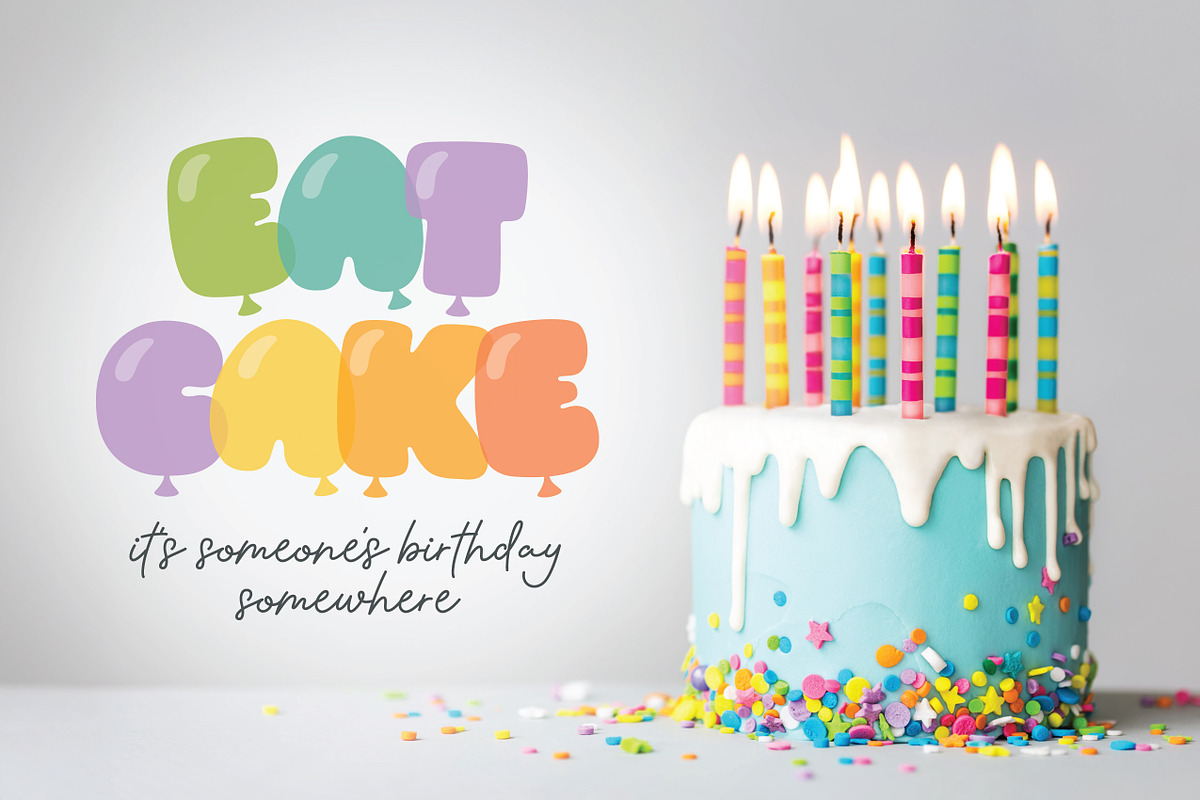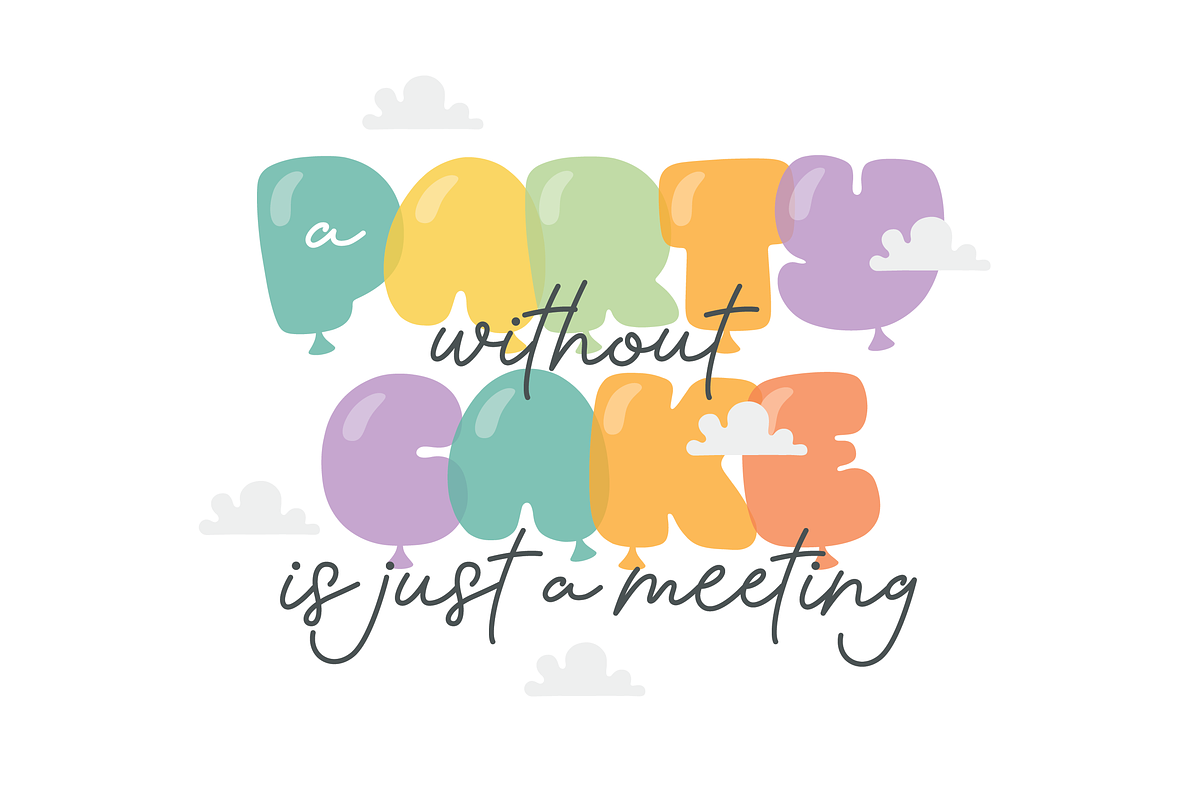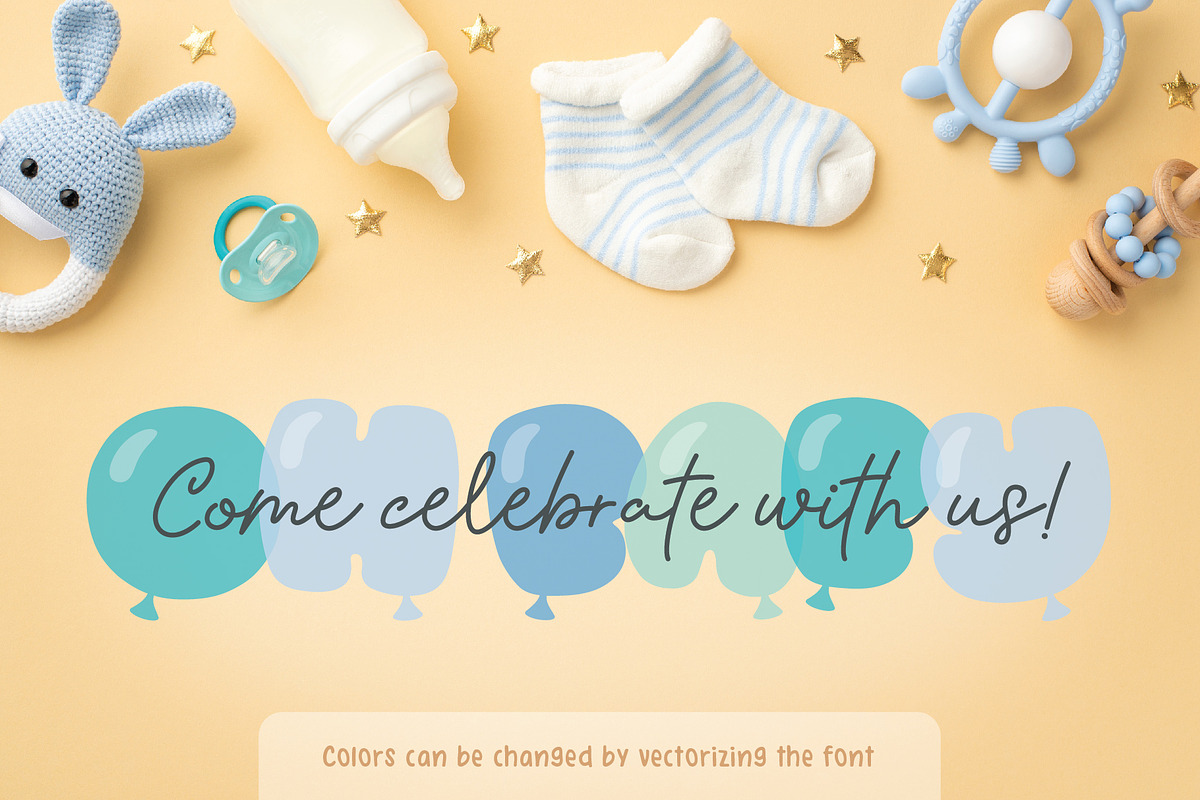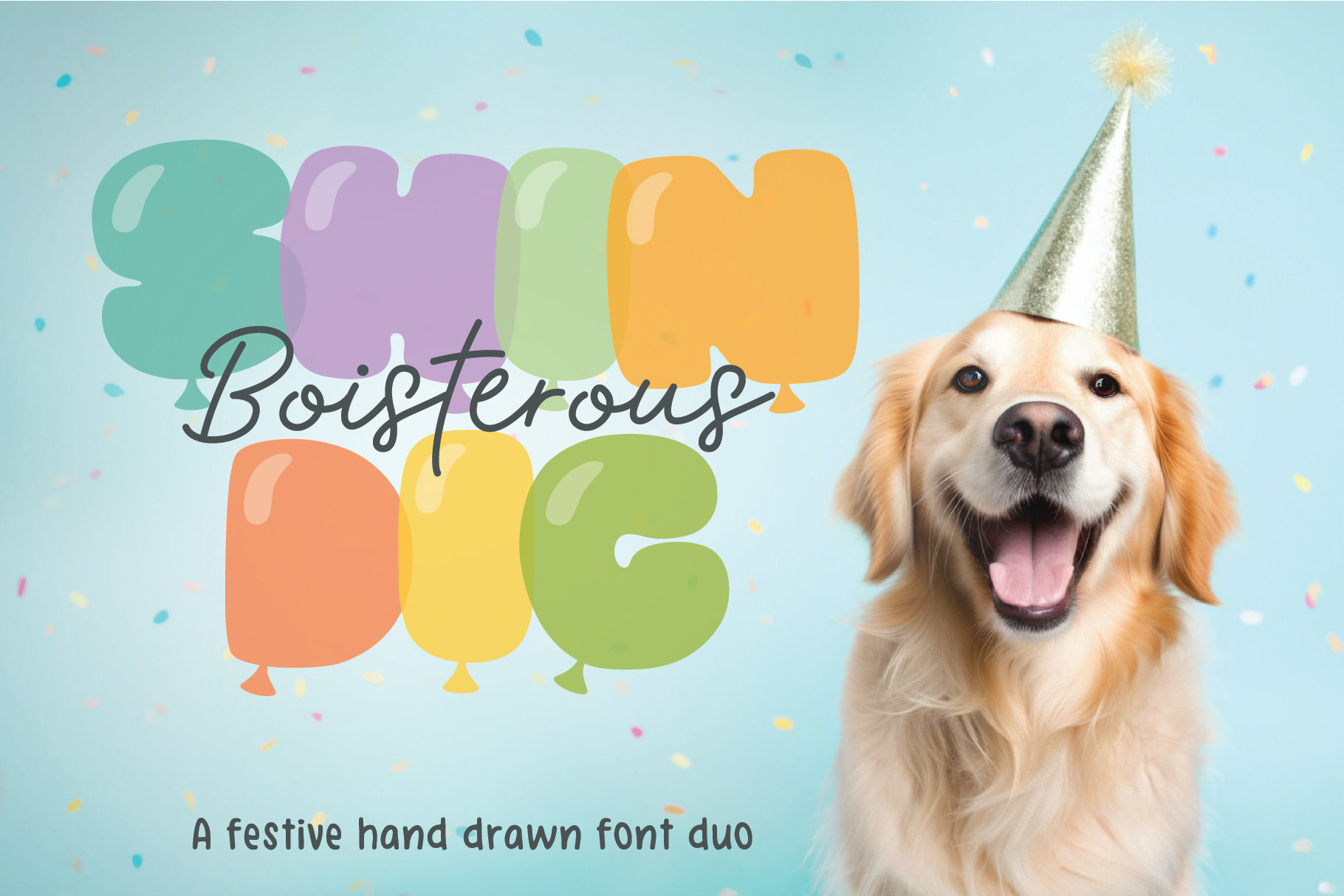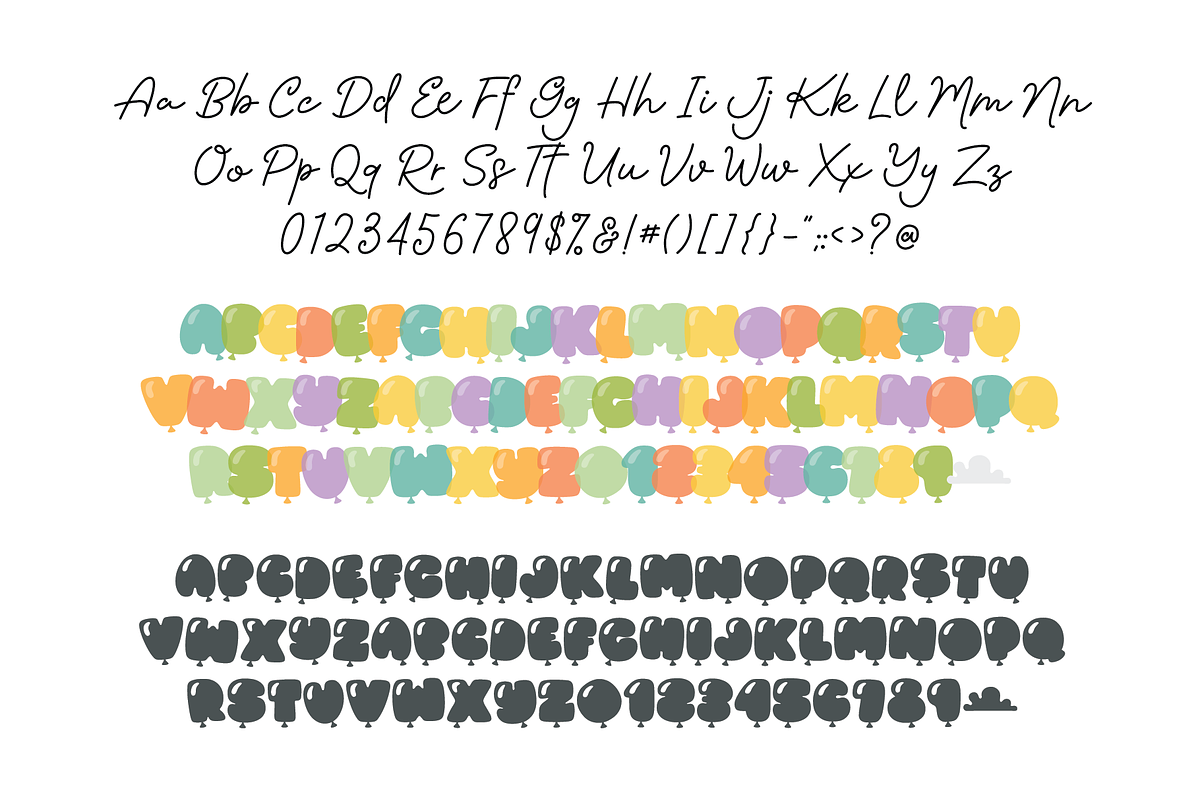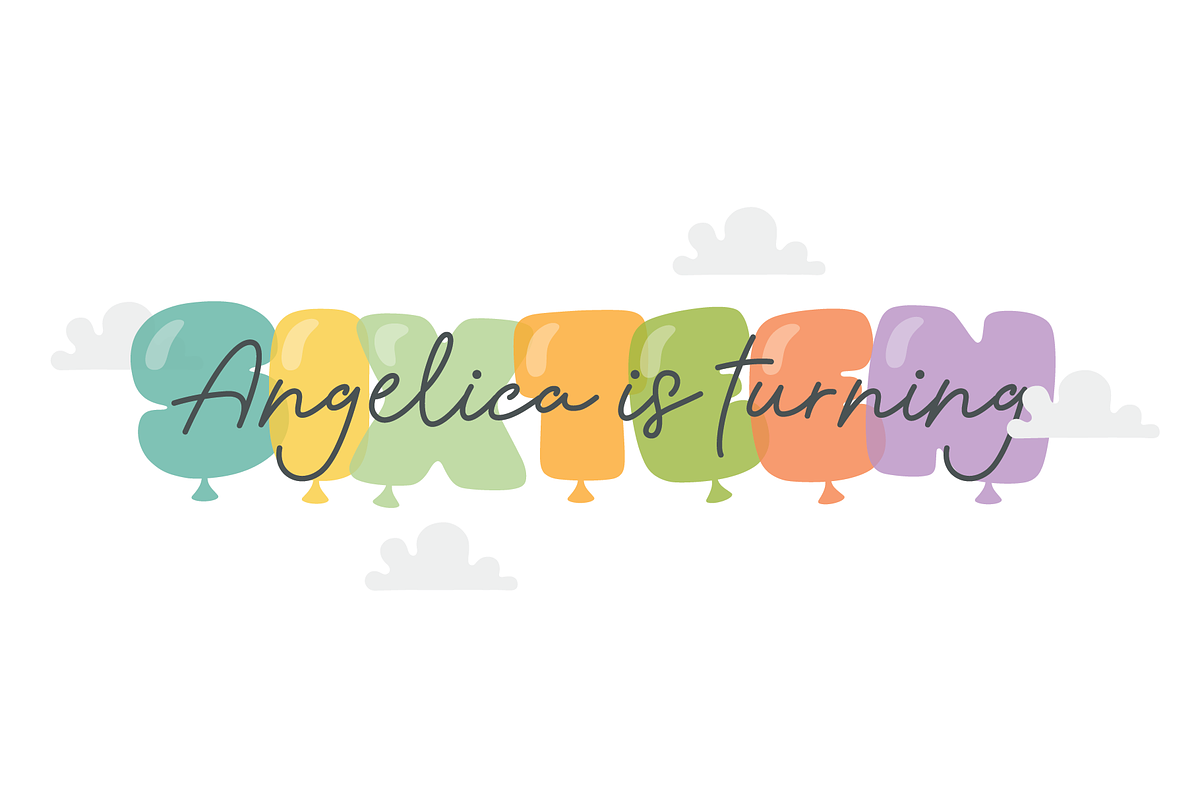
Boisterous Shindig Font Duo
Boisterous Shindig Font Duo includes a simple, monoline script paired with a fun, bold balloon font (english letters and numbers only). The balloon font comes in 2 variations: a color SVG-OTF version shown in the screenshots above and a basic black version. Colors of the SVG version can be changed by vectorizing the font using a design program such as Illustrator.